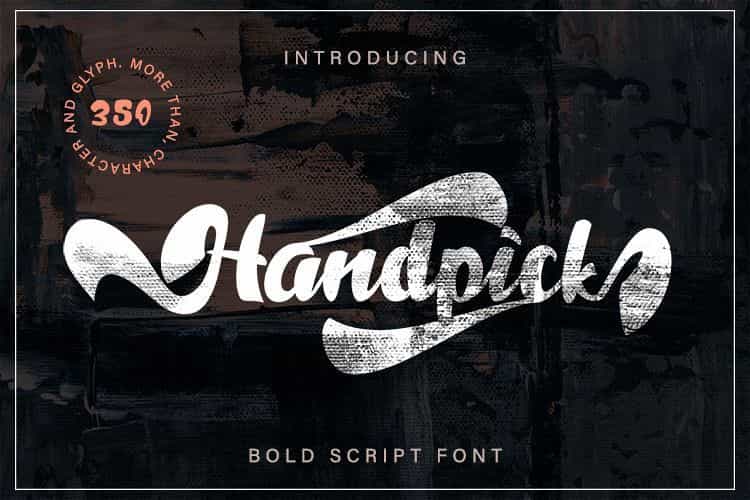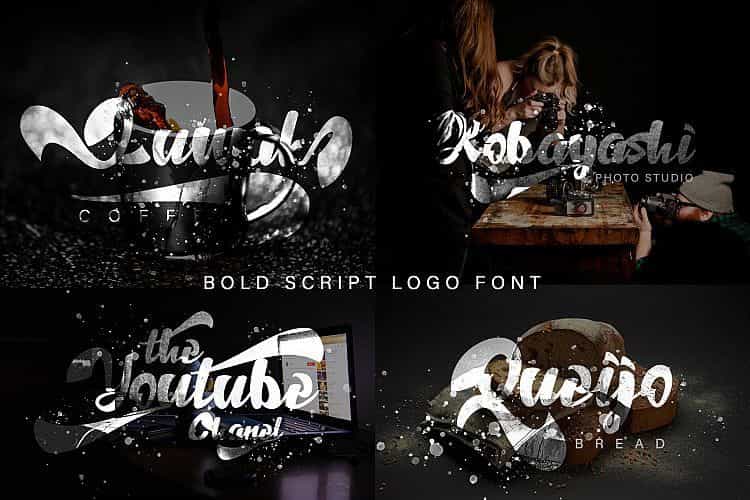
Discover Handpick Bold Script Font, part of the Brush Comic collection—a versatile and unique font perfect for adding a personal touch to your projects. Download it for free and enjoy crafting designs with style, from invitations to social media posts. This font is available exclusively for personal use, giving you the freedom to create without limits. Unlock your creativity with Handpick Bold Script Font today!
A Handpick Font Let’s give it a name. A powerful font with bold script, Handpick. This font is full of alternates, in total: 356 characters and glyphs altogether. Handpick will cover all kinds of applications; from branding projects to magazine and poster designs, advertising or websites, games etc etc. Good for YouTube as well!